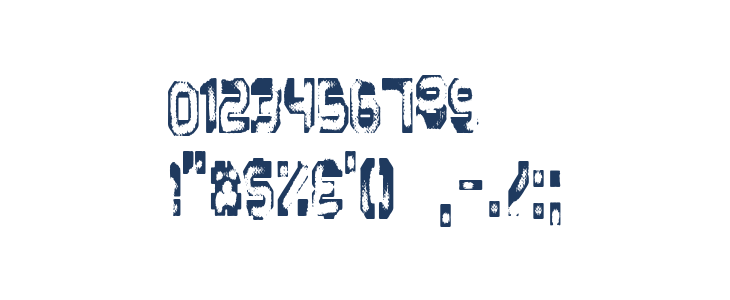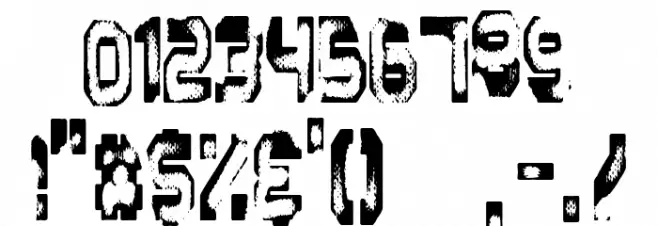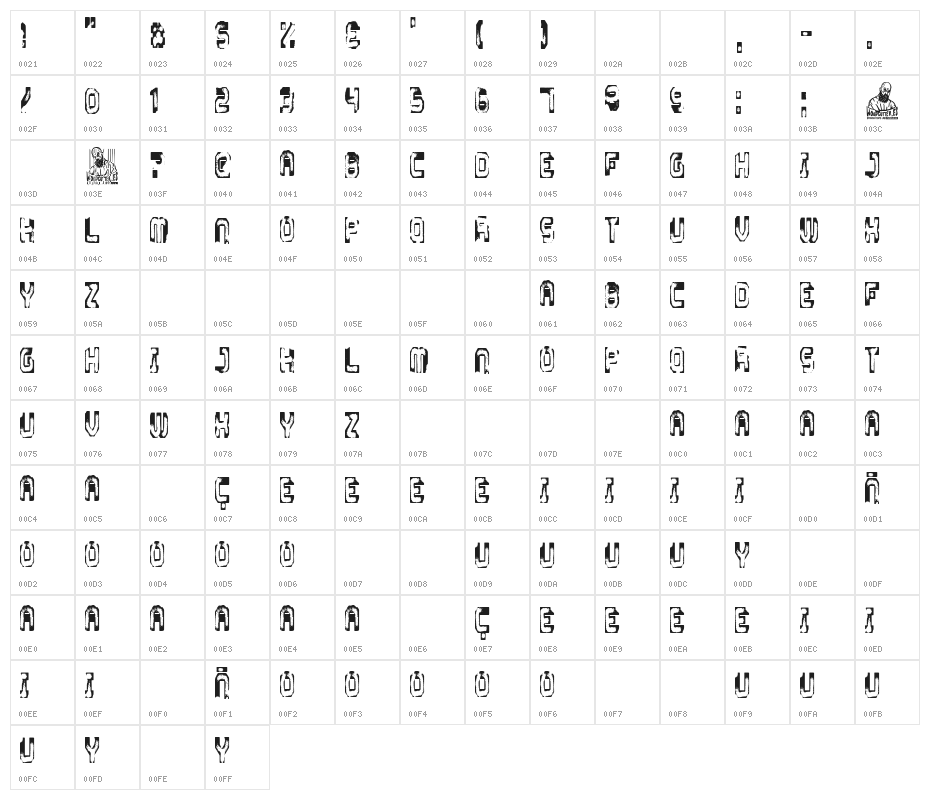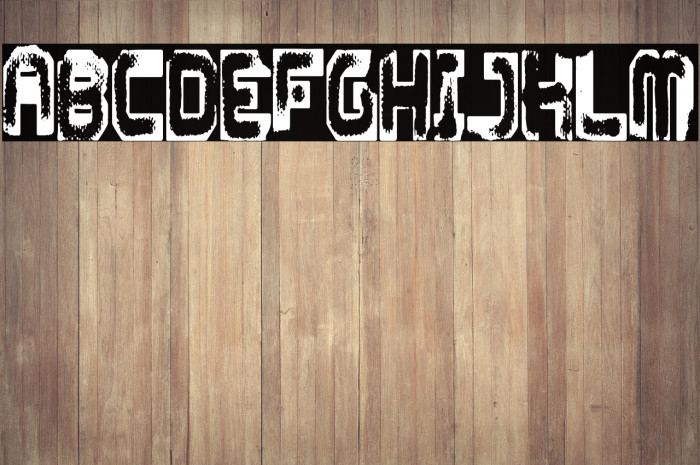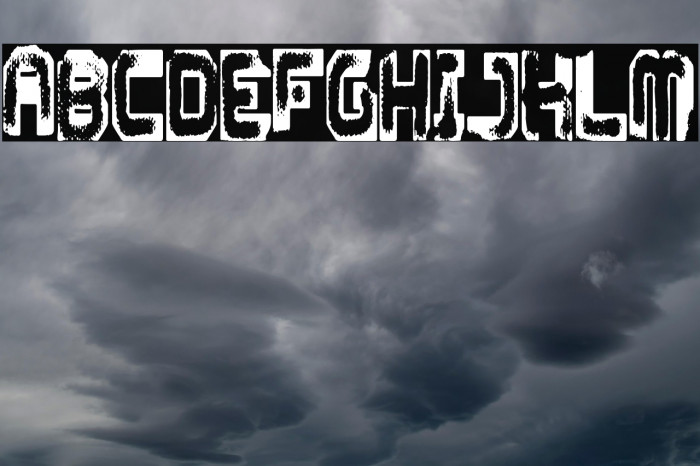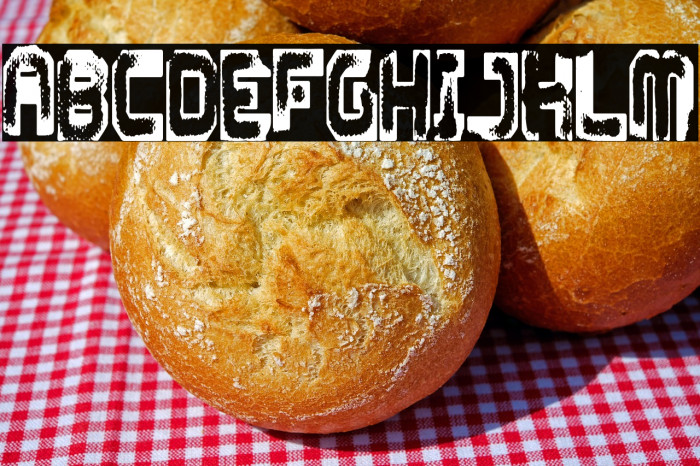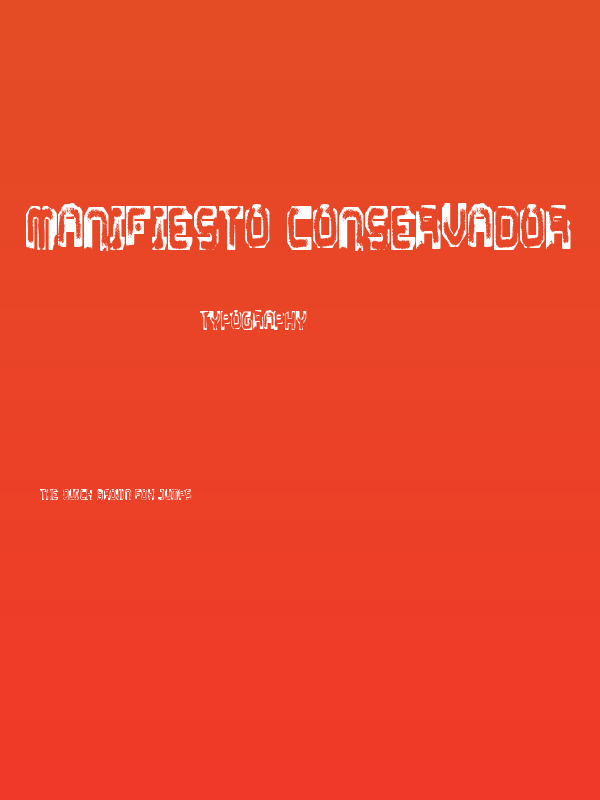
Manifiesto Conservador Font
Manifiesto Conservador Description
This font features a bold and distressed appearance, characterized by its rough texture and uneven edges. The letters are blocky and substantial, giving a sense of strength and ruggedness. The distressed effect adds a vintage or grunge aesthetic, making it suitable for designs that require a bold statement. The characters are uniformly wide, with consistent spacing that maintains readability despite the textured style. This font is ideal for projects that aim to convey a sense of edginess or historical depth.
| Overall Style | Vintage, Grunge |
| Proposed Projects | Ideal for posters, album covers, branding for edgy or vintage-themed products, and any design requiring a strong, impactful typeface. |